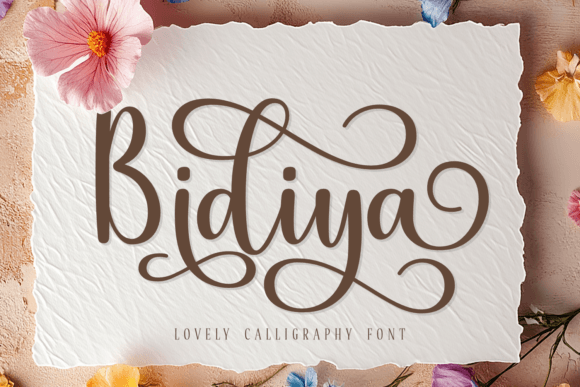
The Bidiya Font: A Beautiful Script to Elevate Your Designs
I still remember the time I was working on a wedding invitation project, and I just couldn’t find the right font to capture the elegance and warmth of the occasion. The client wanted something that would make their special day feel truly unique, but I was stuck. That’s when I stumbled upon the Bidiya font, and it instantly became the perfect fit. Its lovely, flowing letters and elegant curves added a touch of charm to the invitation, making it truly unforgettable.
An Honest Review of Bidiya Font
What I Love About Bidiya ✨
• 💫 Elegant curves and swirls that add a touch of sophistication to any design
• ✅ Friendly style that gives your words a warm and inviting feel
• 🎨 Perfect for adding a creative and artistic touch to invitations, greeting cards, and other designs
• 📚 Works beautifully with OpenType features, glyphs, and stylistic alternates
While Bidiya is an amazing font, there are a few things to keep in mind:
• 🤔 Some users have reported issues with kerning, so it’s essential to adjust the spacing to get the best results
The Story Behind Bidiya Font
Bidiya font was created with the intention of bringing a touch of elegance and warmth to designs. The designer wanted to craft a font that would be perfect for special occasions, such as weddings and anniversaries, but also versatile enough for everyday use. With its beautiful curves and swashes, Bidiya has become a popular choice among designers and crafters alike.
Q: What type of designs is Bidiya font best suited for?
A: Bidiya font is perfect for designs that require a touch of elegance and sophistication, such as invitations, greeting cards, and other special occasion designs.